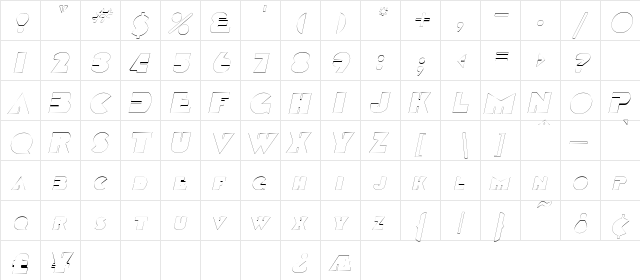
GarretOutline Italic
Design Context for GarretOutline Typeface
GarretOutline is built around its visual character rather than neutral utility — its distinctive forms are designed to make an impression at display sizes. The slanted form adds forward momentum and visual energy.
Font Pairing: Pair with a clean neutral sans-serif for body copy to let GarretOutline's character lead without overwhelming the composition.
Pro Tip: Use GarretOutline exclusively at display sizes — it was designed to be seen, not read at length. Let a neutral companion handle body copy.